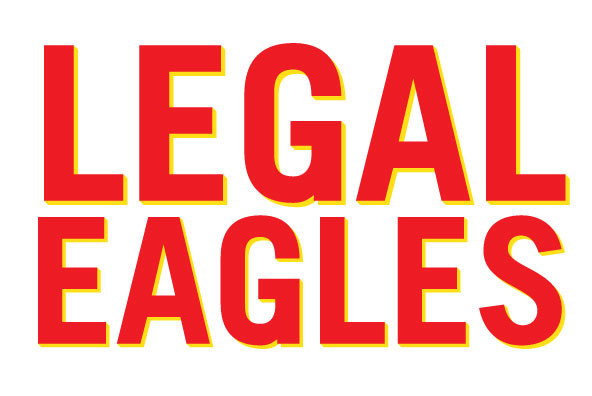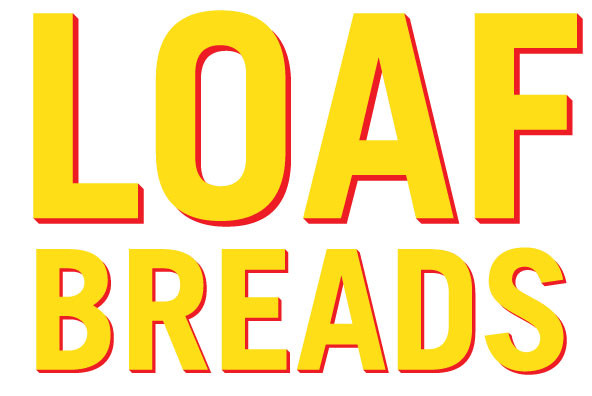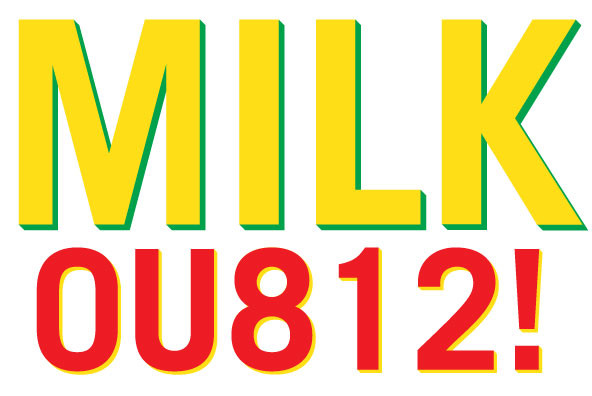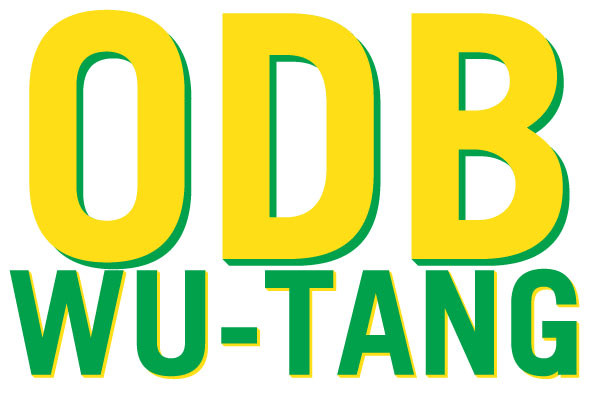
Stacker Font
Stacker is a display gothic typeface with three weights of extruded typefaces that can be used to project the main typeface spatially. Originally designed for Beautiful/Decay magazine, then picked up for Nokia’s 2006 Europe campaign, Stacker is a bold, lively, attention-grabbing display face. The extruded faces can be used in a standalone manner, as they have been by electronic musicians such as YACHT and E*Rock.